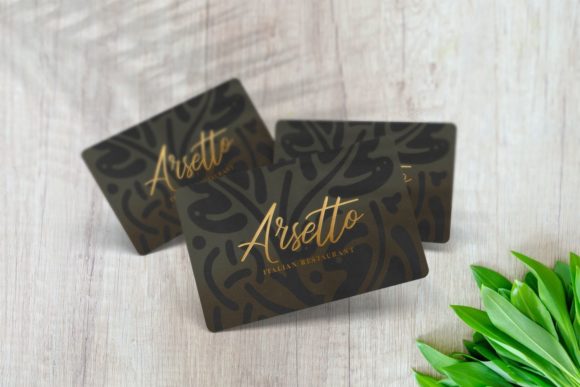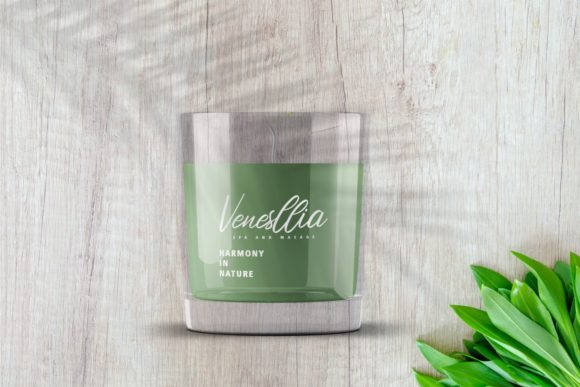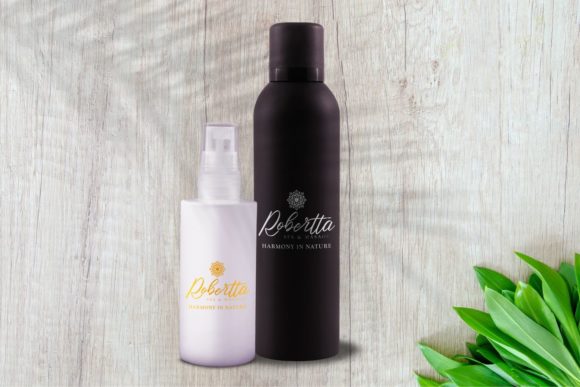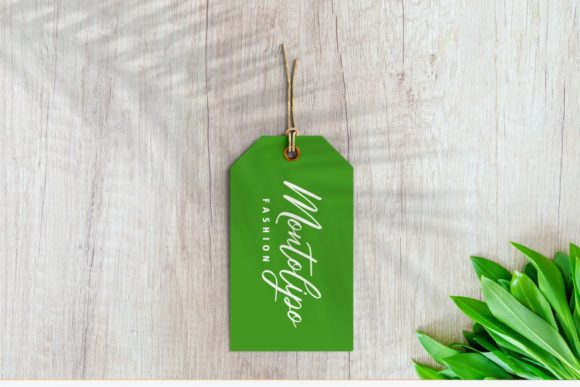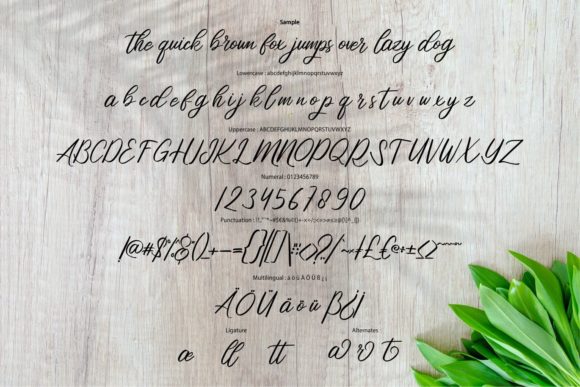
Catha Font: Elevate Your Designs with Elegance and Sophistication
In the world of typography, fonts play a crucial role in conveying the tone and personality of a design. For designers and crafters seeking a modern script font with a touch of calligraphy, Catha Font is an exceptional choice. This stunning font is perfect for creating beautiful invitations, greeting cards, branding materials, business cards, quotes, posters, and more.
What is Catha Font?
Catha Font is a modern script font that embodies the elegance of calligraphy. Its flowing lines, intricate details, and beautiful swashes make it an ideal choice for designs that require a touch of sophistication. The font’s modern twist on traditional calligraphy makes it versatile and suitable for a wide range of applications.
Key Features of Catha Font
• Modern Script Style: Catha Font boasts a modern script style that is both elegant and refined.
• Calligraphy Inspiration: The font draws inspiration from traditional calligraphy, adding a touch of sophistication to any design.
• Beautiful Swashes: Catha Font features beautiful swashes that add a decorative touch to your designs.
• Highly Versatile: The font is suitable for a wide range of applications, from invitations and greeting cards to branding materials and posters.
Catha Font is a dream come true for designers and crafters seeking a beautiful and elegant font for their projects. Whether you’re creating:
• Invitations: Make your invitations stand out with Catha Font’s elegant and sophisticated style.
• Greeting Cards: Add a touch of warmth and personality to your greeting cards with this beautiful font.
• Branding Materials: Elevate your brand’s visual identity with Catha Font’s modern and refined style.
• Business Cards: Create memorable business cards that showcase your professionalism and style.
• Posters: Make a statement with Catha Font’s bold and elegant style.
Why Choose Catha Font?
With so many fonts available, why choose Catha Font? Here are just a few reasons:
• Unique and Elegant: Catha Font offers a unique and elegant style that sets it apart from other fonts.
• High-Quality Design: The font is designed with high-quality craftsmanship, ensuring a professional finish.
• Easy to Read: Despite its elegant style, Catha Font is easy to read, making it perfect for body text and headlines.
• Flexible and Versatile: The font is highly versatile, suitable for a wide range of applications and design styles.
Tips for Using Catha Font
To get the most out of Catha Font, here are some tips:
• Pair with Neutral Backgrounds: Pair Catha Font with neutral backgrounds to let the font’s elegance shine.
• Experiment with Swashes: Experiment with the font’s swashes to add a decorative touch to your designs.
• Use for Headlines and Titles: Use Catha Font for headlines and titles to add a touch of sophistication.
• Mix with Other Fonts: Mix Catha Font with other fonts to create a unique and visually appealing design.
Catha Font is a stunning modern script font with a calligraphy style that is perfect for designers and crafters seeking elegance and sophistication. With its beautiful swashes, highly versatile design, and easy-to-read style, Catha Font is an exceptional choice for a wide range of applications. Whether you’re creating invitations, greeting cards, branding materials, or posters, Catha Font is sure to elevate your designs to the next level.